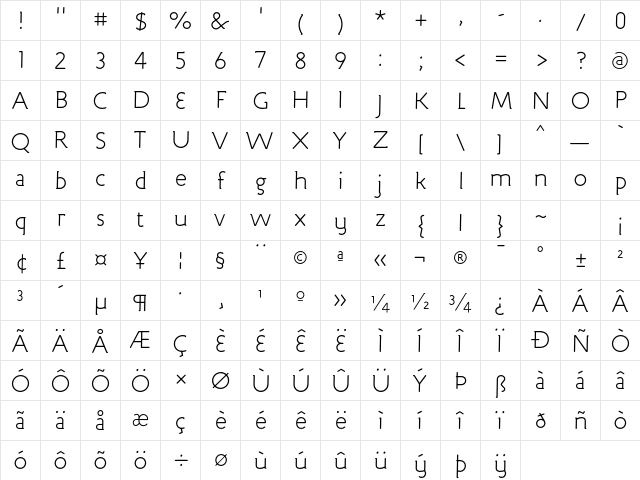
Engine LightLF
Style: LightLF
Engine Family
Engine LightLF
Design Context for Engine
Engine is a composed and adaptable typeface that performs quietly and consistently across a wide range of design contexts. Its slender proportions lend an understated elegance to any composition.